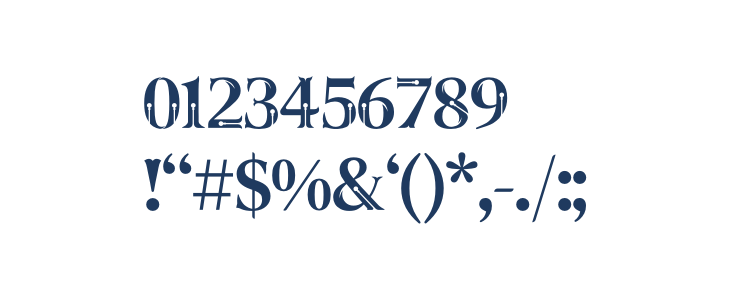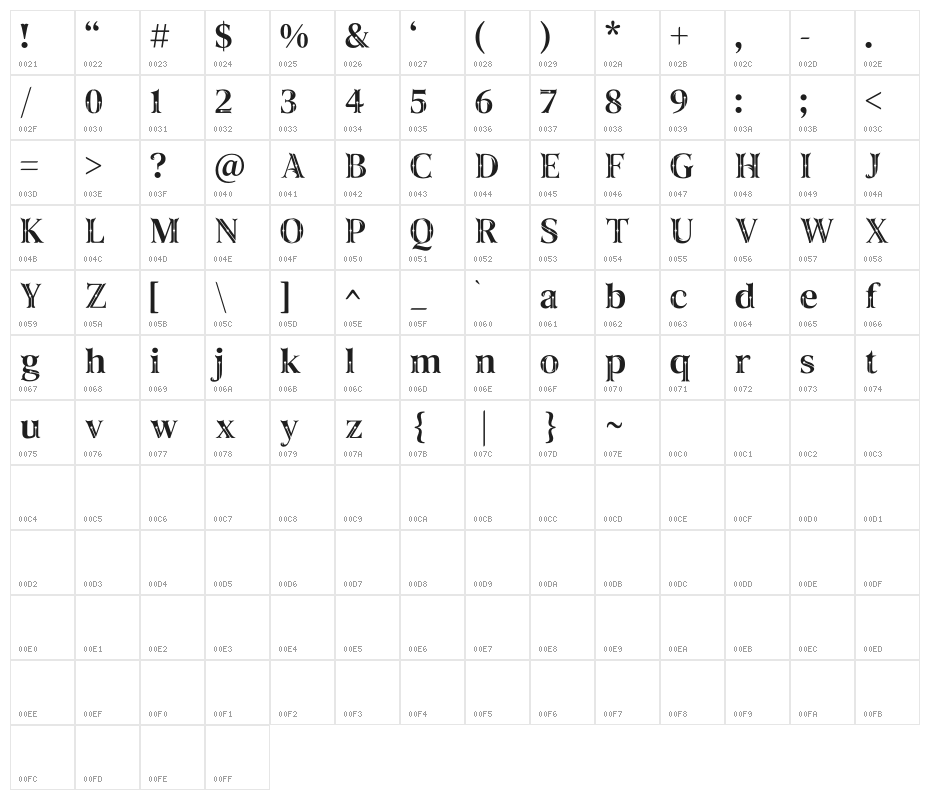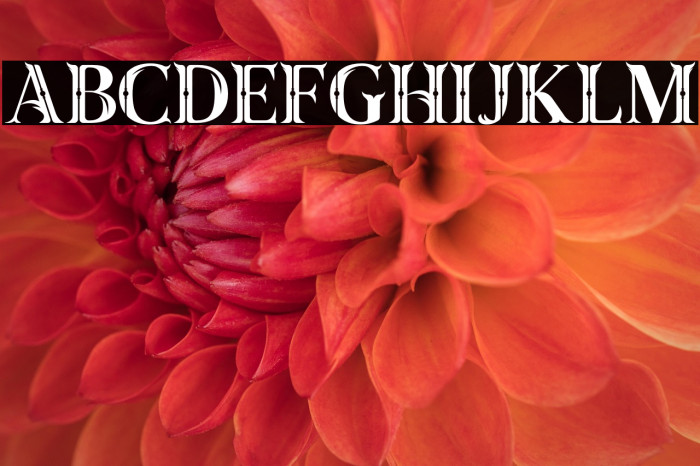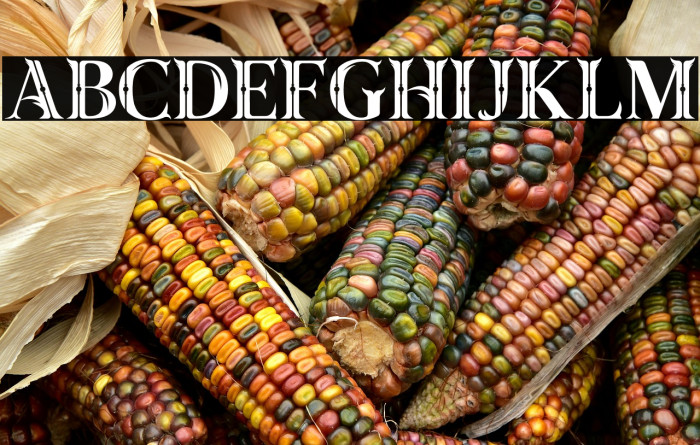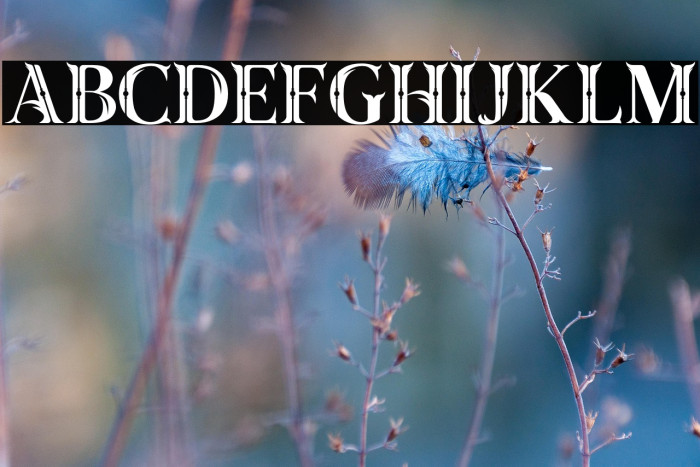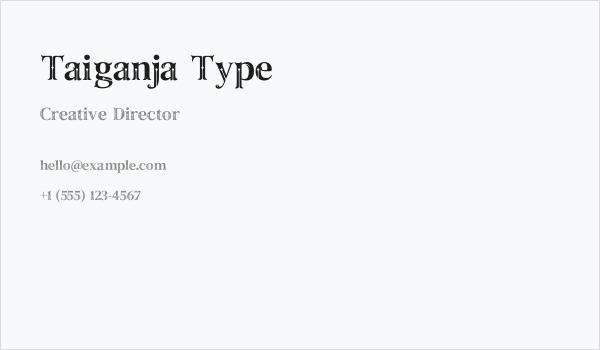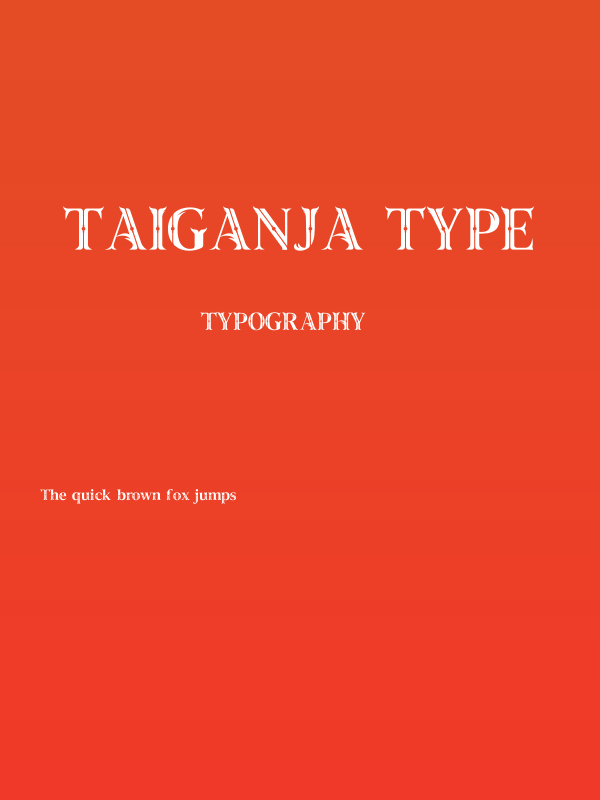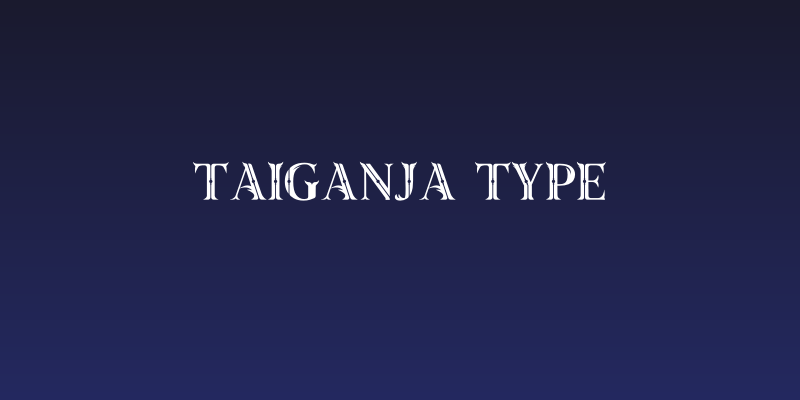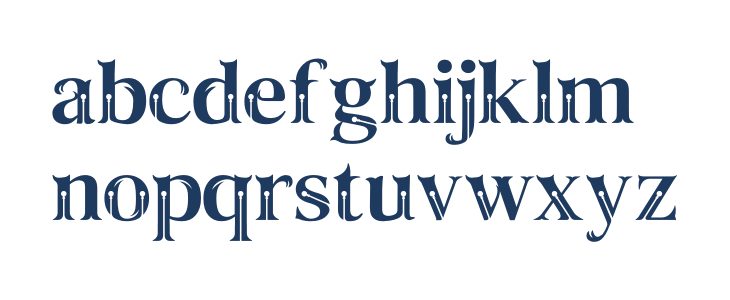
Taiganja Type Font
Taiganja Type Description
This font features a unique blend of modern and vintage styles, characterized by its bold, decorative serifs and high contrast between thick and thin strokes. The uppercase letters exhibit a strong presence with their sharp, angular serifs and pronounced vertical stress, making them ideal for attention-grabbing headlines. The lowercase letters maintain a consistent style, with rounded forms and distinctive serifs that add a touch of elegance. The numerals are equally striking, with a consistent weight and style that complements the alphabet. Special characters are designed with the same attention to detail, ensuring a cohesive look across all glyphs. This font's intricate design and bold appearance make it suitable for a variety of creative projects.
Overall StyleModern Vintage
Proposed ProjectsIdeal for branding, poster design, book covers, and any project requiring a strong visual impact.